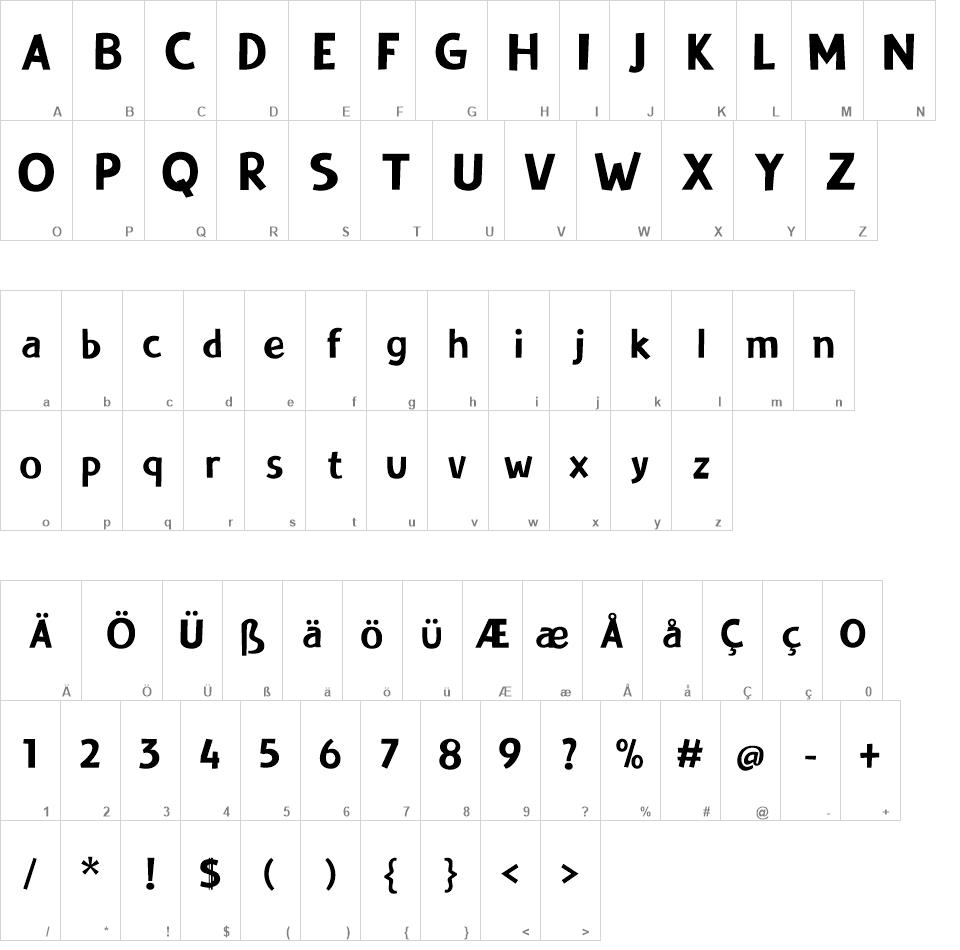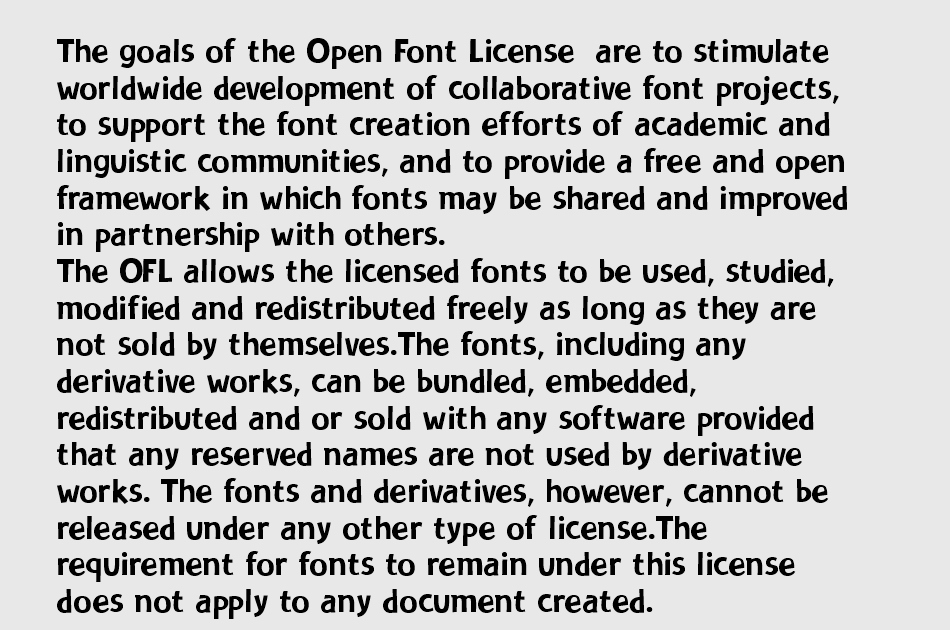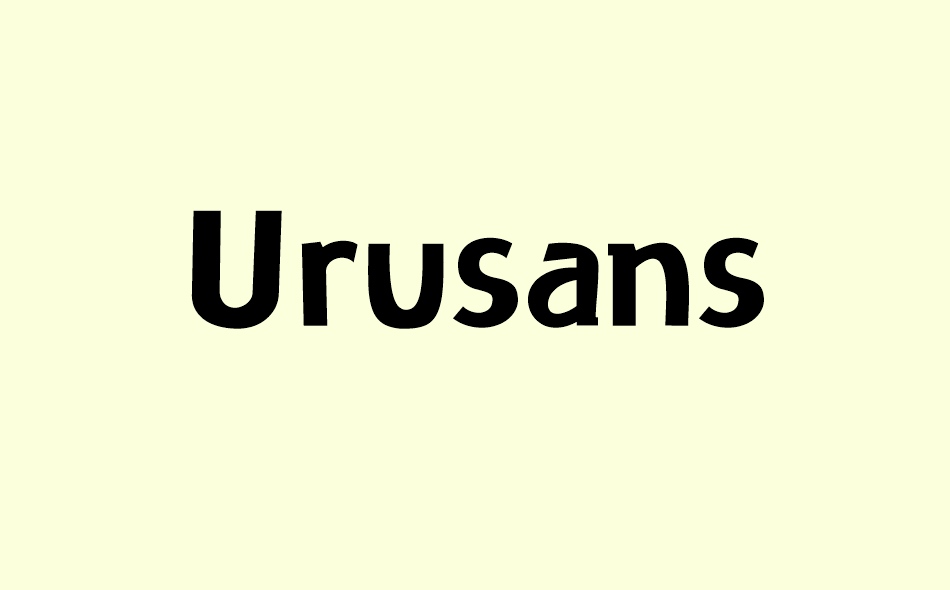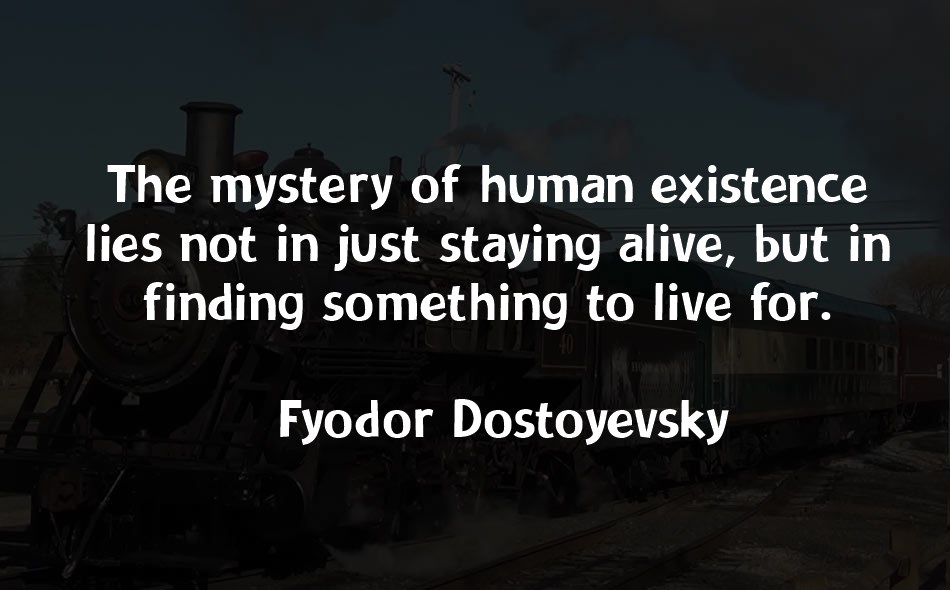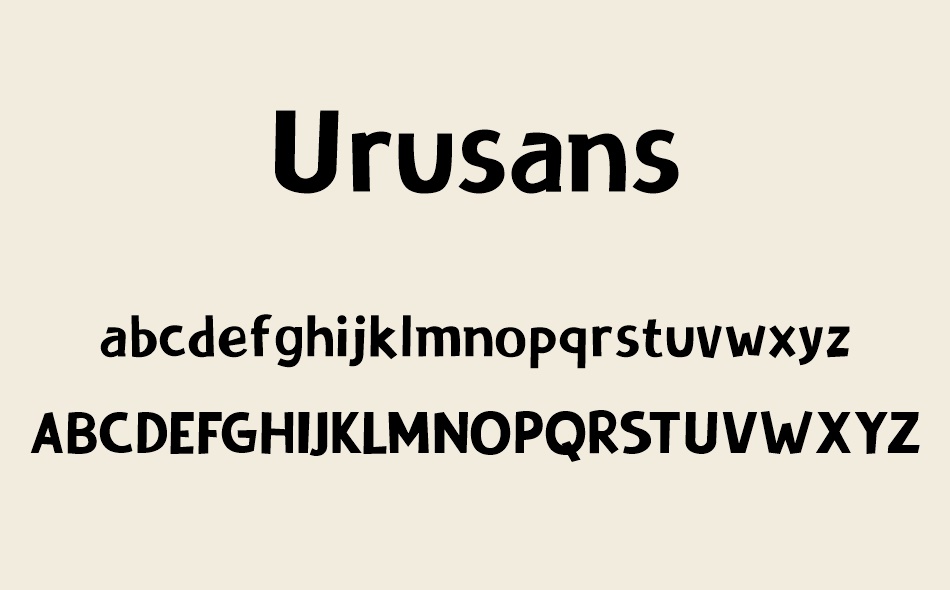
Urusans font
Introducing our newest font Urusans, a typeface in a Sans Serif style. Inspired by the punk scene and irregular handwriting style. Affairs you can use in your design projects for music posters, text in comics, big titles in an article, or you can also use them in apparel design. You are not allowed to change, modify or even resell this font, without permission from the author.